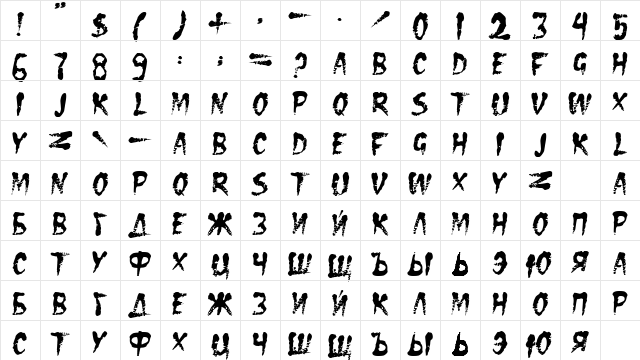
DS Eraser2 Regular Free Font
DS Eraser2 Regular
Designer: Dubina Nikolay
Design Context for DS Eraser2
DS Eraser2 is a composed and adaptable typeface that performs quietly and consistently across a wide range of design contexts.